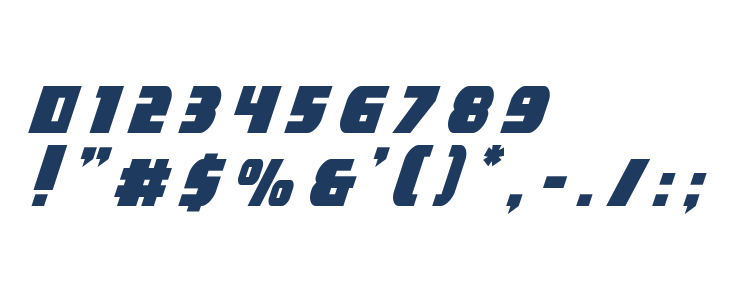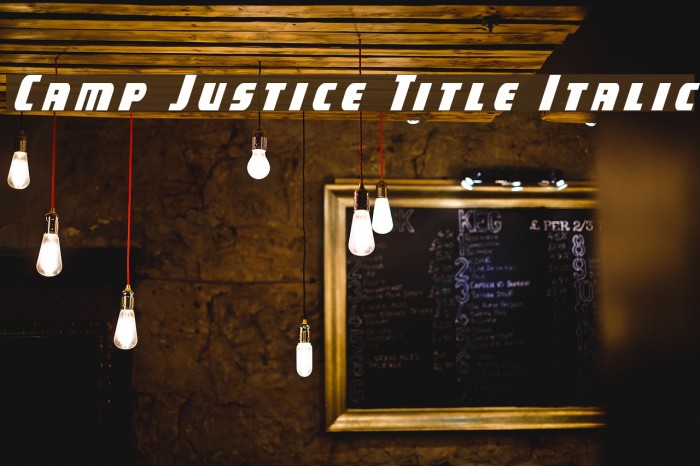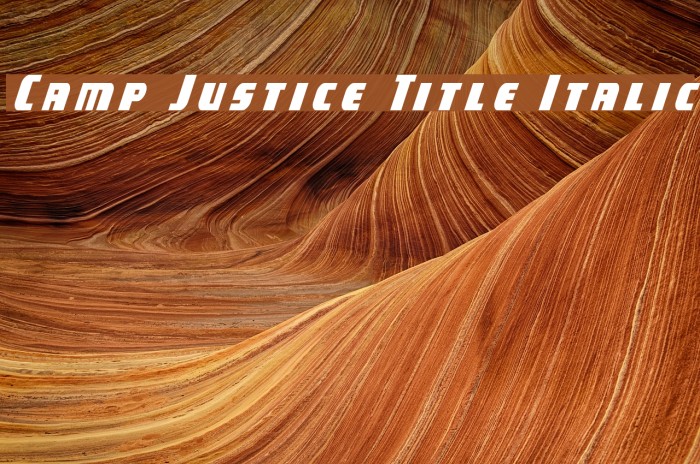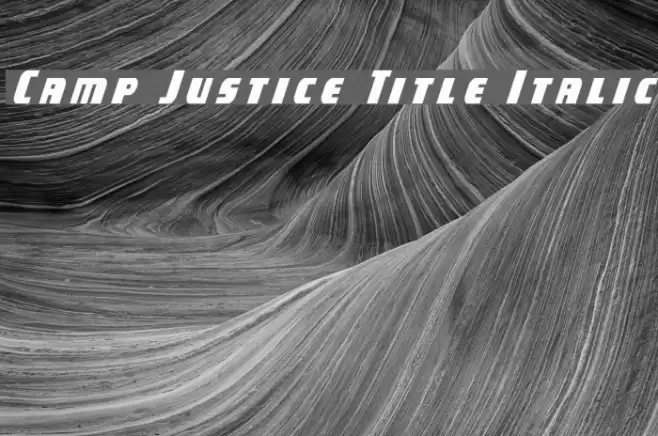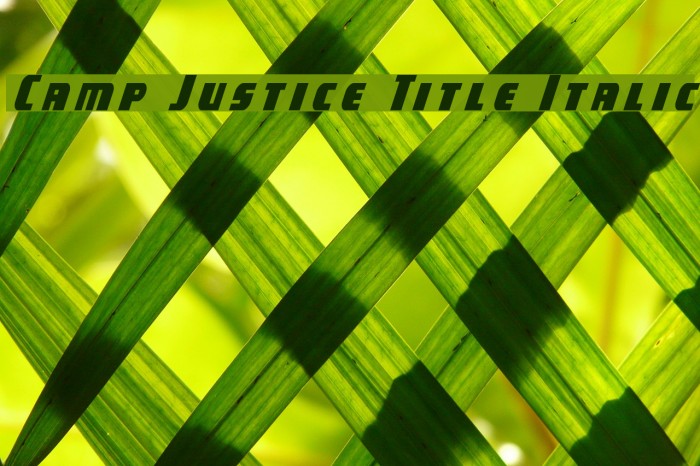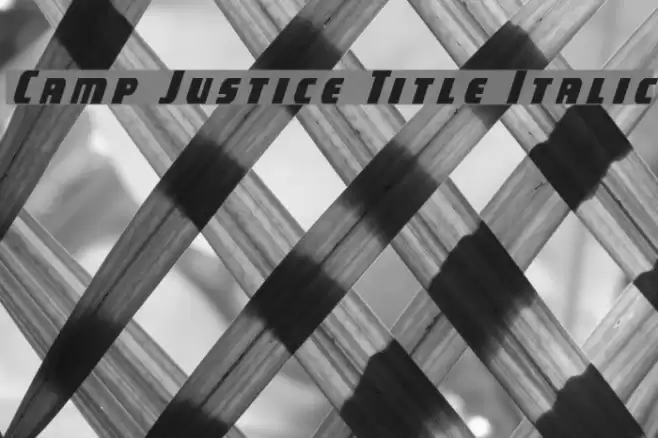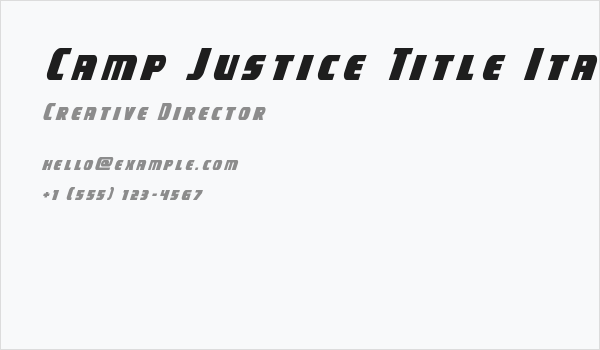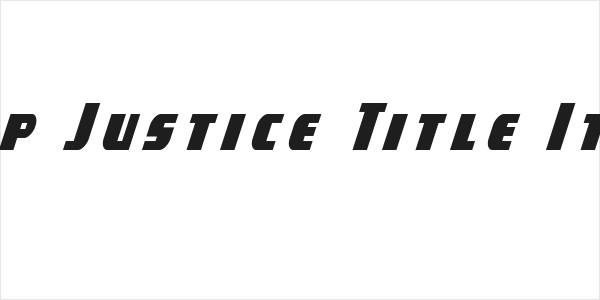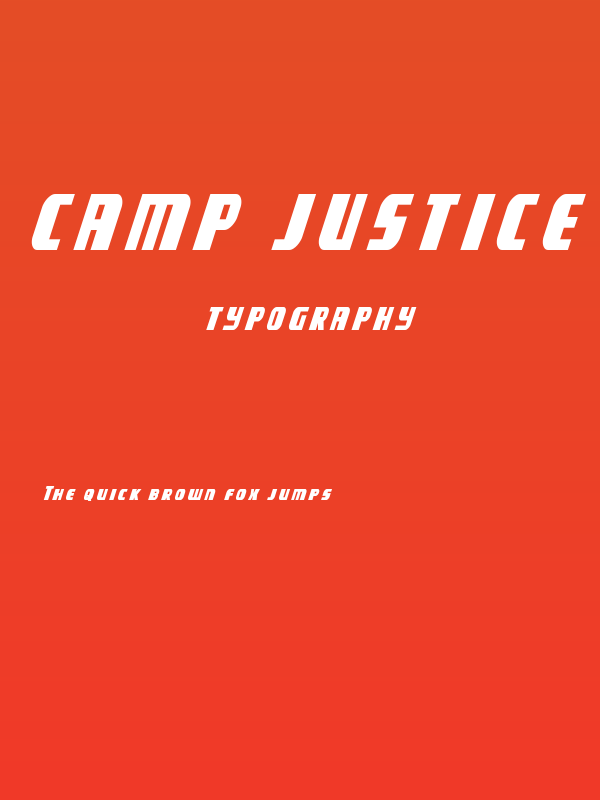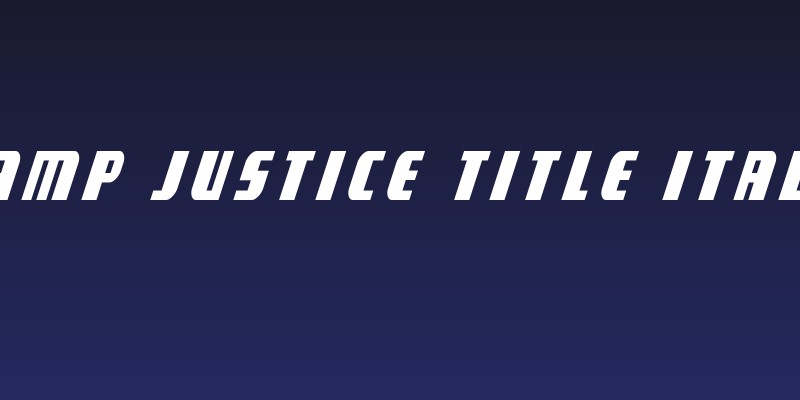
Camp Justice Title Italic Font
Camp Justice Title Italic Description
This font features a bold and dynamic style with a strong italic slant, giving it a sense of motion and energy. The characters are wide and have a slightly condensed appearance, which enhances their boldness. The strokes are thick and consistent, providing a high contrast that makes the text stand out prominently. The design is modern and sleek, suitable for attention-grabbing headlines or titles. The uppercase and lowercase letters maintain a uniform style, and the numerals are equally bold and impactful. Special characters are designed to match the overall aesthetic, ensuring consistency across all text elements.
| Proposed Projects | Ideal for sports branding, action movie posters, dynamic advertising campaigns, and bold editorial headlines. |